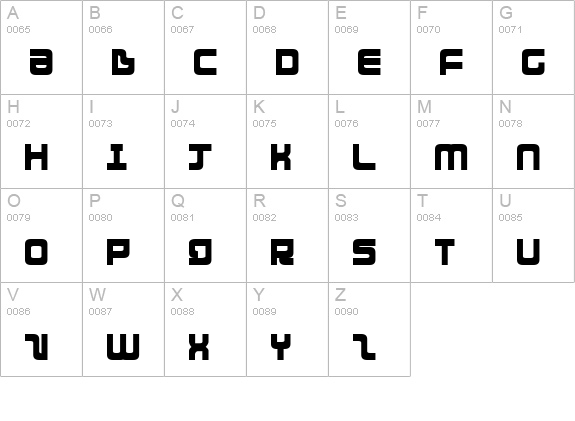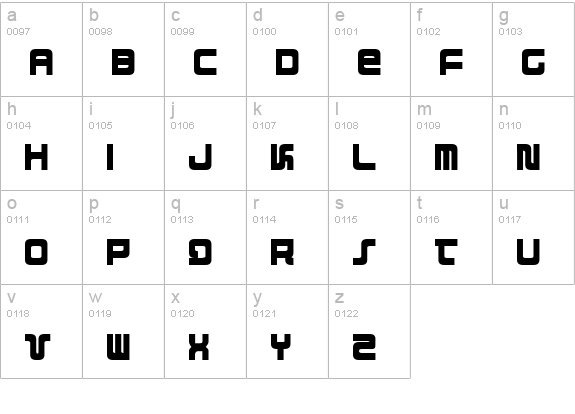
Direktor Condensed is a distinctive, condensed-width variant in the Direktor typeface family \xE2\x80\x94 well suited to design and typography projects.
Direktor Condensed font is a sleek and modern typeface that exudes sophistication and elegance. Its condensed design allows for a refined and minimalist look, making it perfect for a wide range of design projects. The sharp lines and subtle curves of Direktor Condensed give it a contemporary feel that is both versatile and eye-catching. What sets Direktor Condensed font apart is that it is not only stylish and functional but also free for anyone to use. This means that you can elevate your designs without breaking the bank. Whether you are working on a branding project, a website design, or any other creative endeavor, Direktor Condensed font is sure to make a statement. To get your hands on this exceptional font, simply visit FontsMarket.com where you can download Direktor Condensed for free and start incorporating it into your projects today. Don't miss out on this fantastic opportunity to enhance your designs with a high-quality and cost-effective typeface.